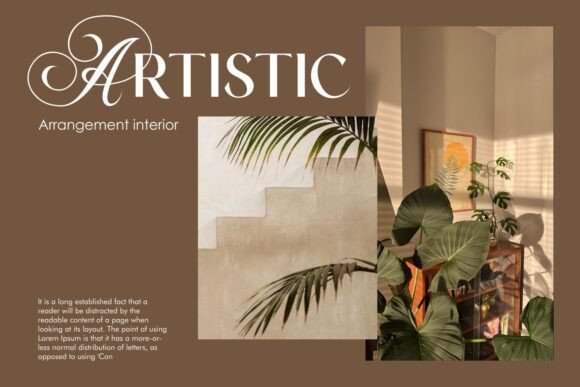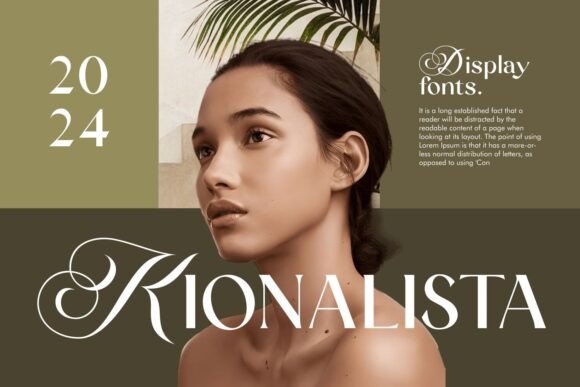
Blinka Font
Meet Blinka, the perfect script and serif font duo for modern luxury designs. This elegant pairing combines bold cursive strokes with refined serif details, making it the ideal choice for creators seeking sophistication and flexibility in one package.